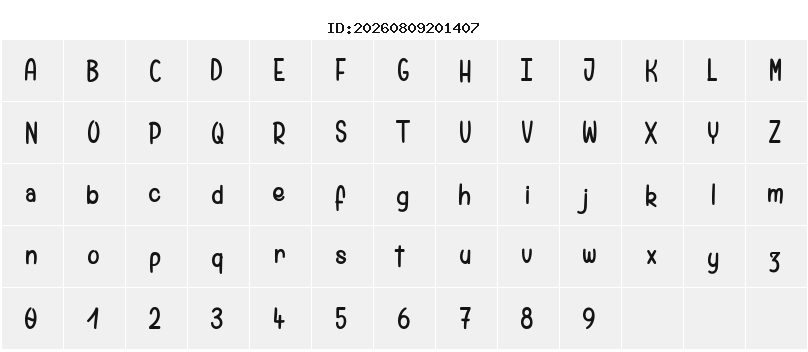
• Font Name: Pamela want a Bike to Ride
• Designer: dcoxy Medina Gregory
About Pamela want a Bike to Ride.ttf
Pamela want a Bike to Ride.ttf is a modern, elegant sans-serif font designed for ultimate readability and visual harmony. Perfect for branding, headlines, web design, and print materials.